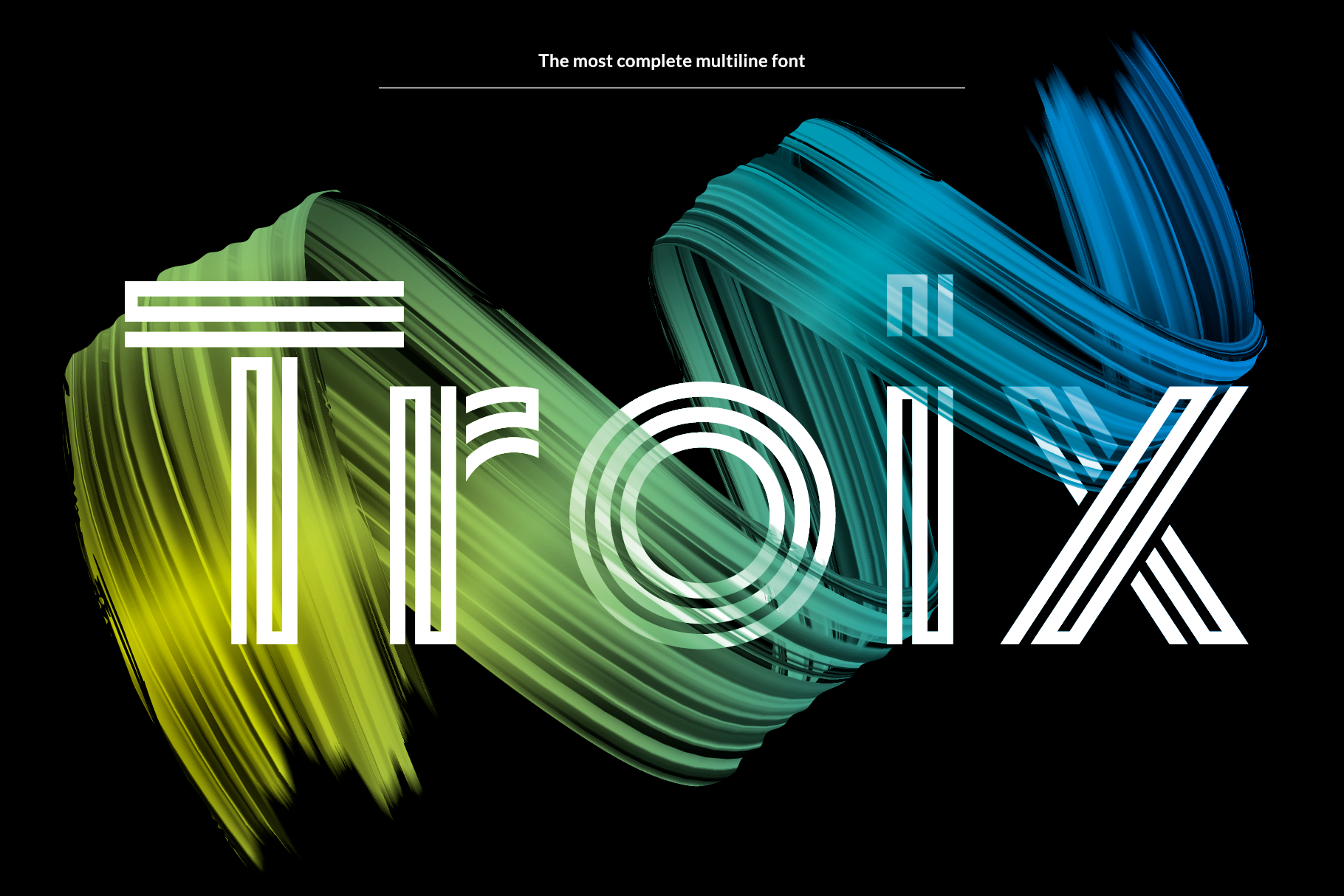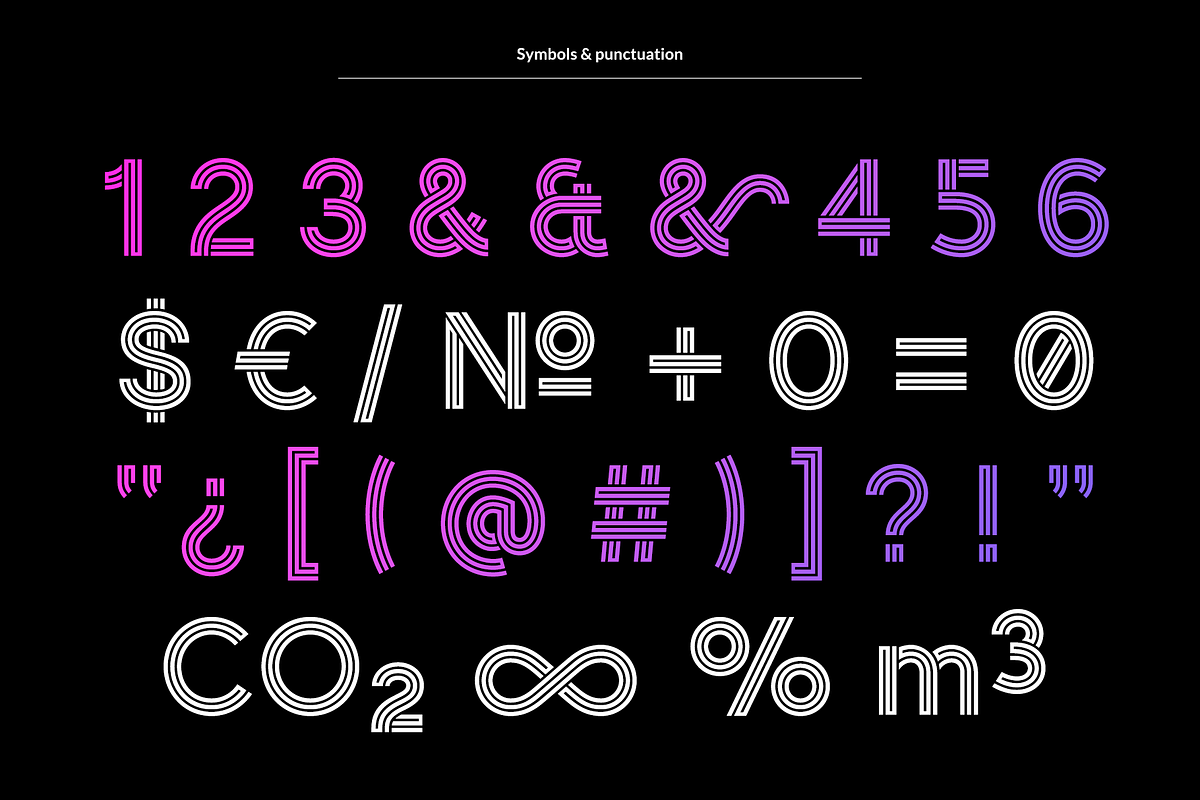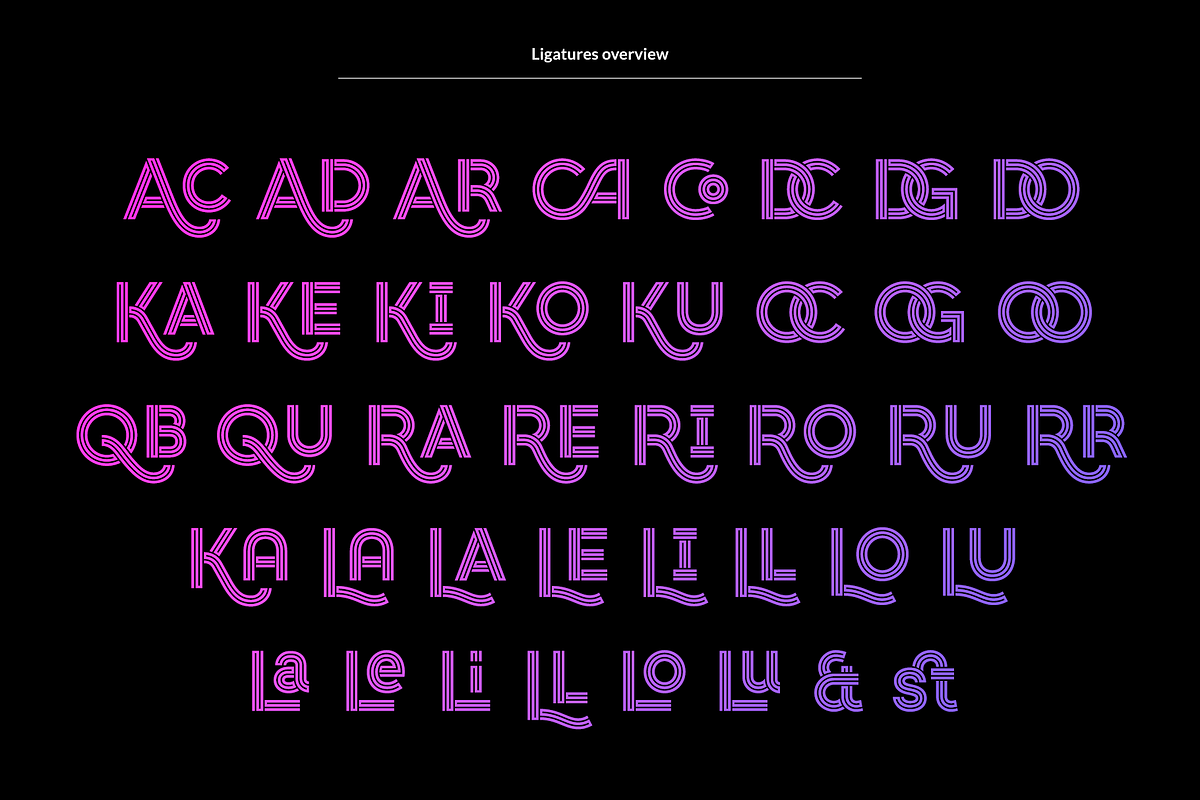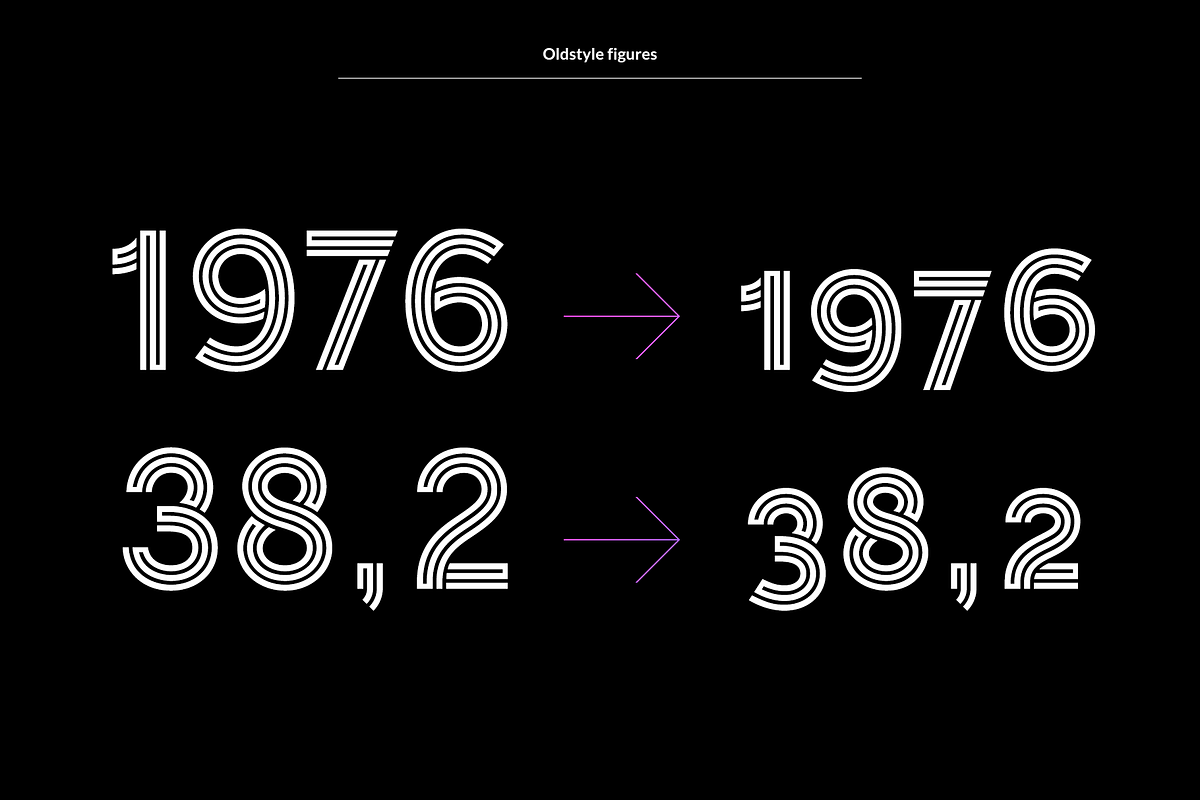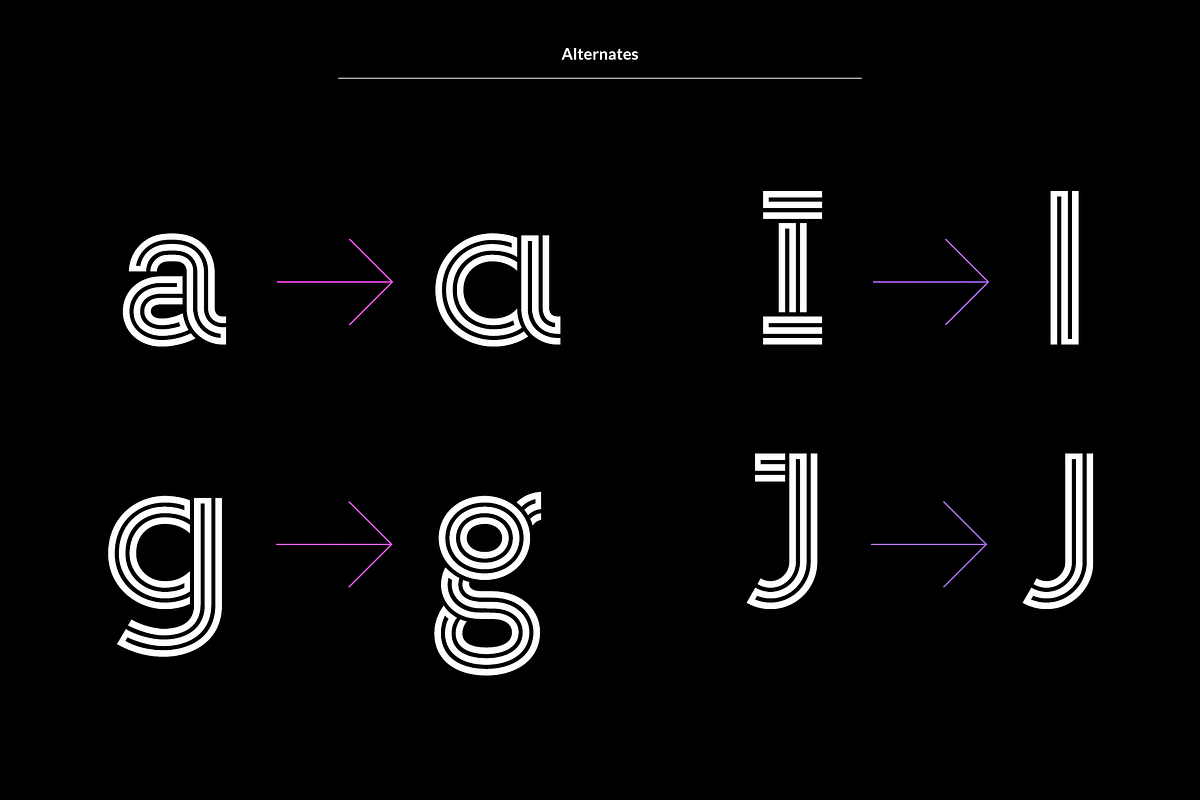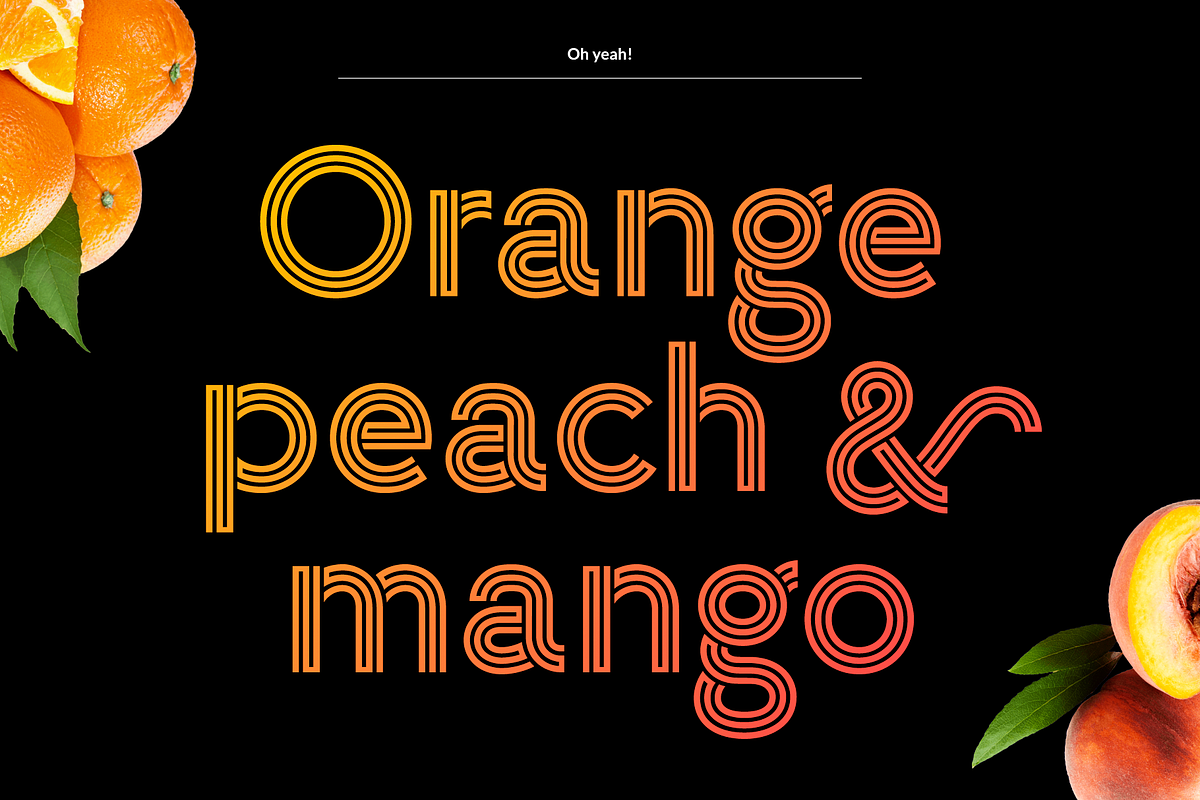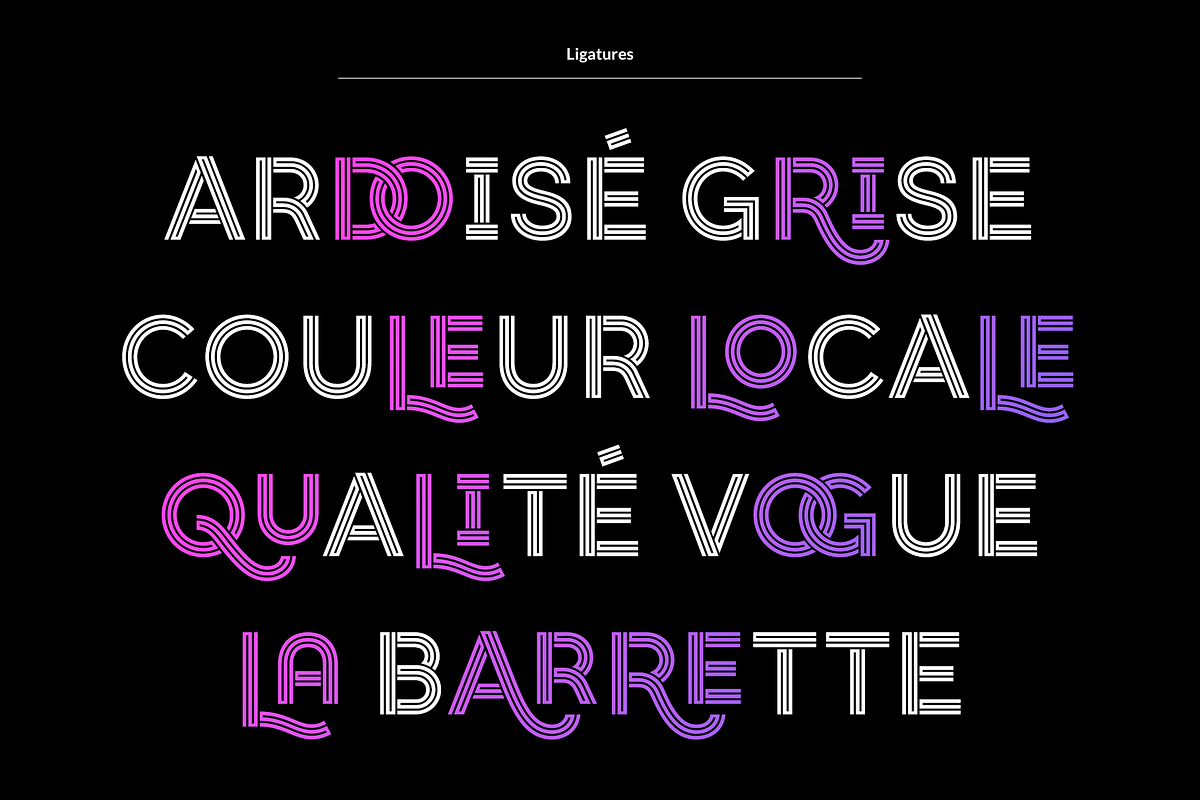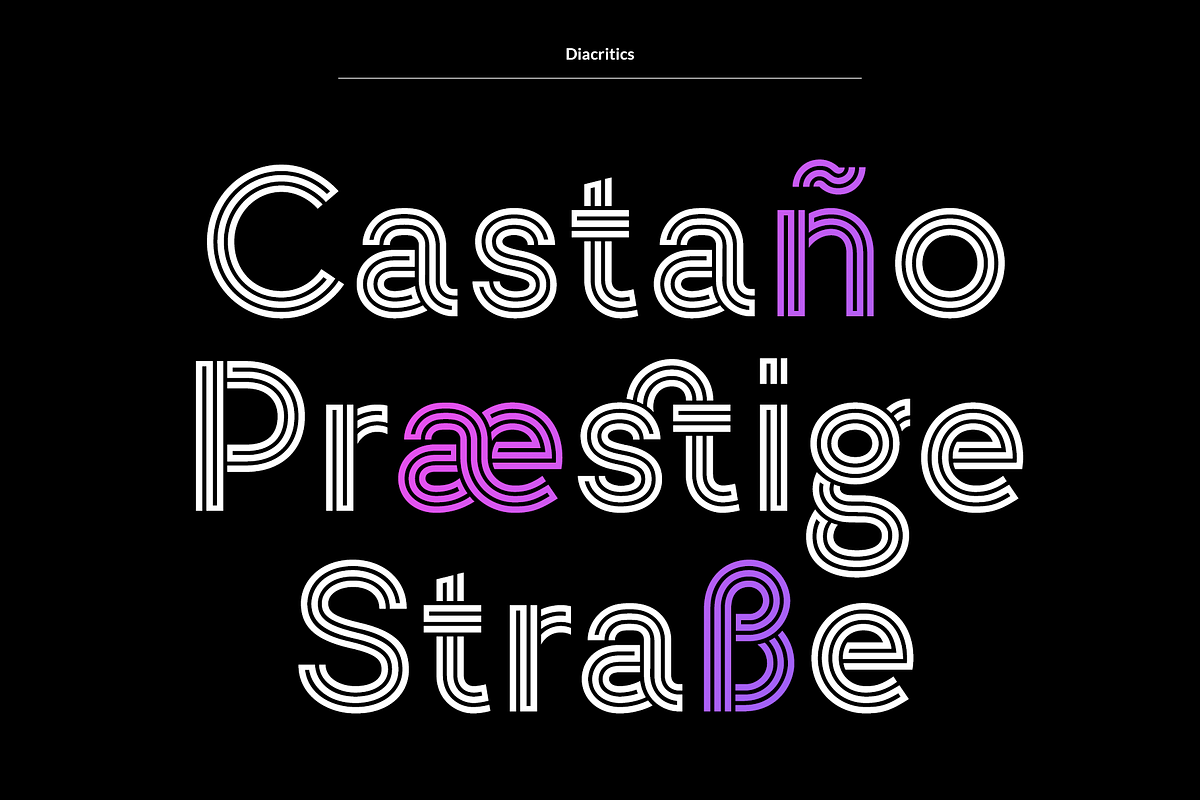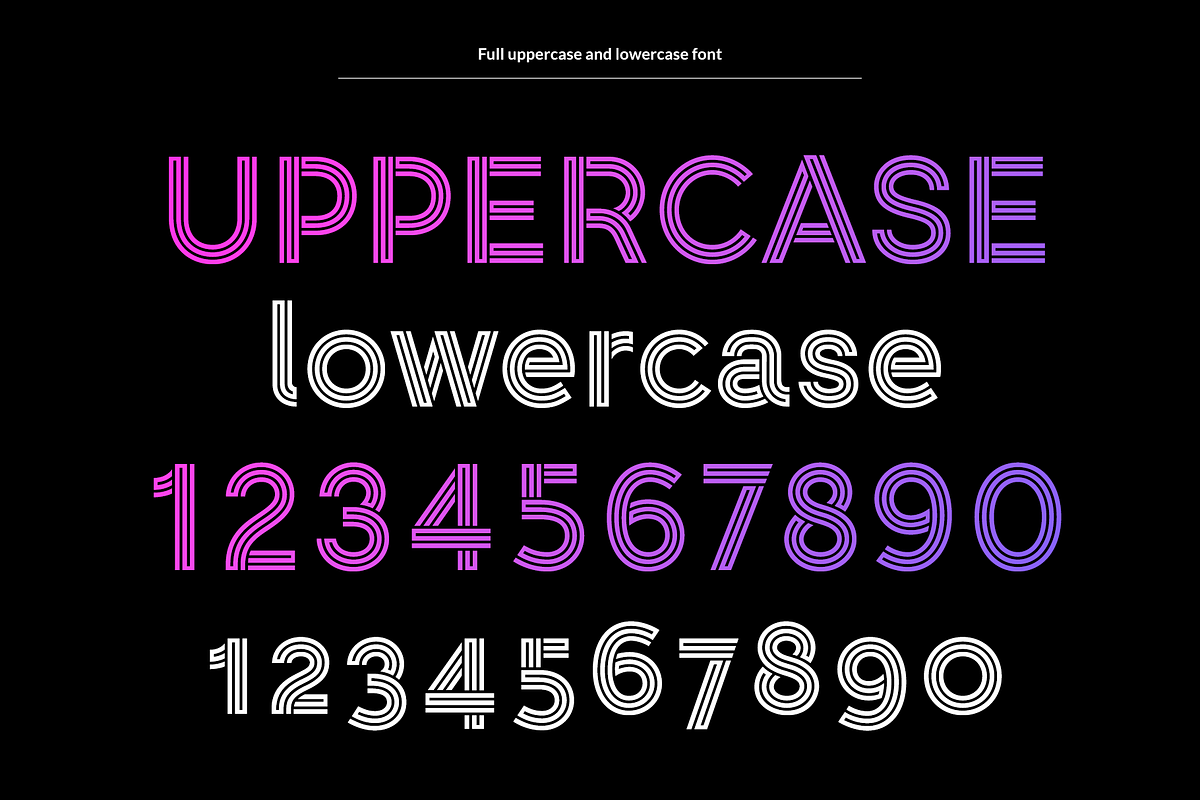
Troix - Multiline Ligature Font
Troix is a full display ligature font with many options – ideal for designing posters, flyers, logos and packaging.
- Numbers & oldstyle figures
- Many symbols & ligatures